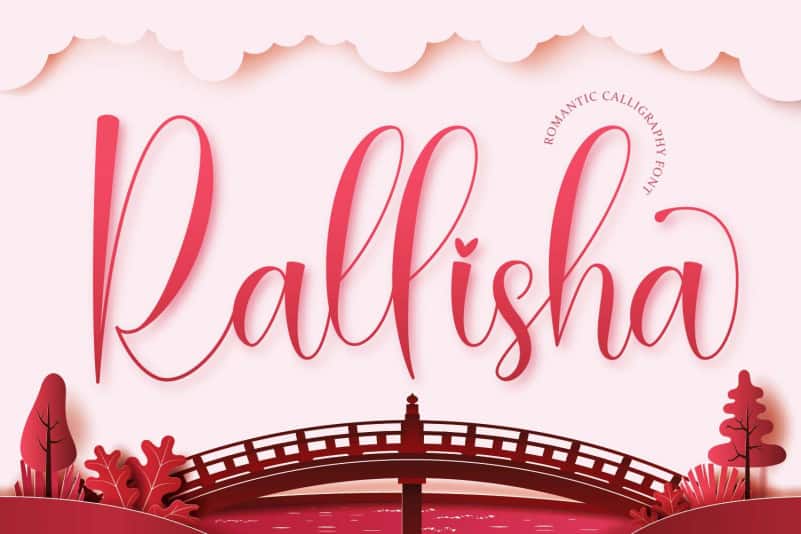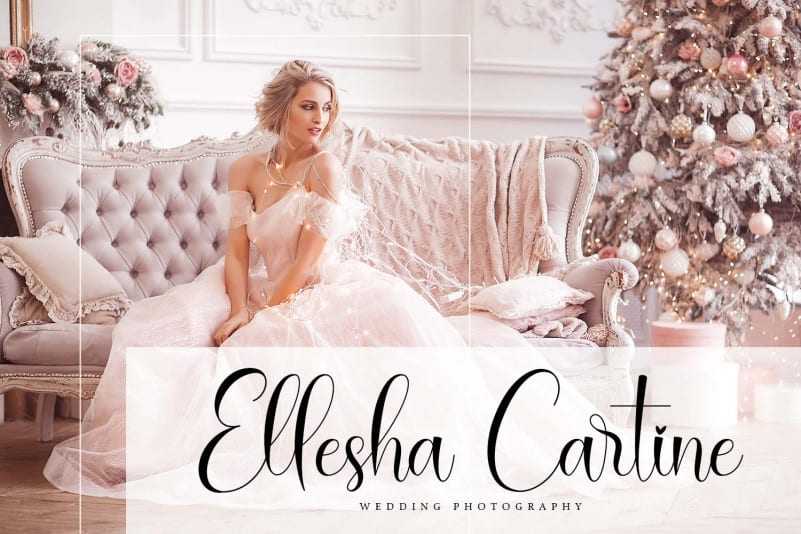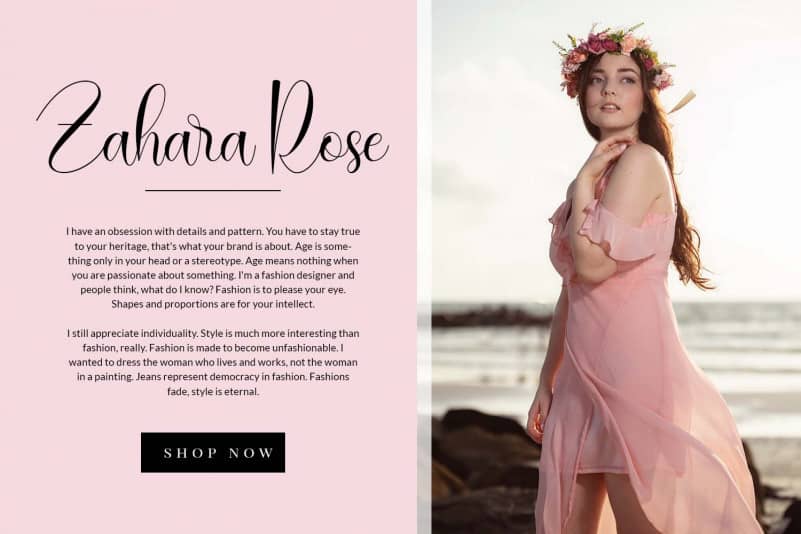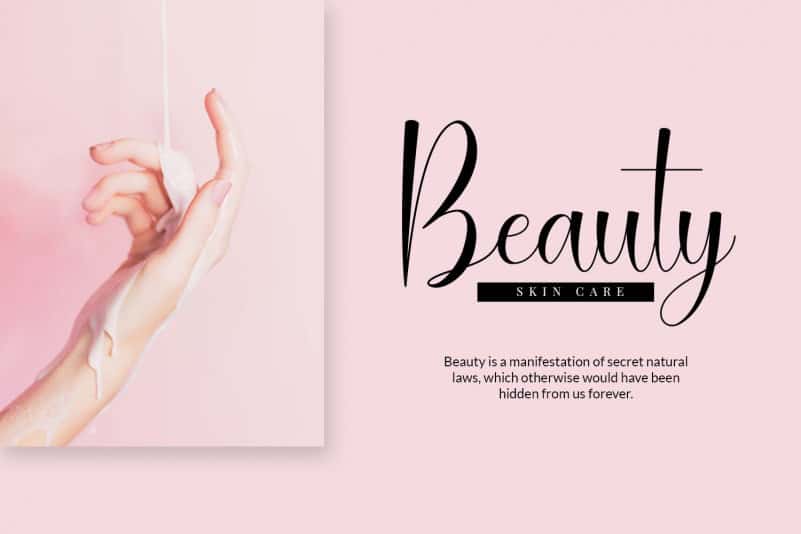
Rallisha Modern Calligraphy Font is a romantic calligraphy typeface, will be suitable for any projects such as branding projects, homeware designs, product packaging, mugs, quotes, posters, shopping bags, t-shirts, book covers, name card, invitation cards, greeting cards, label, photography, watermark, special events, and all your other lovely projects that need beautiful calligraphy taste.